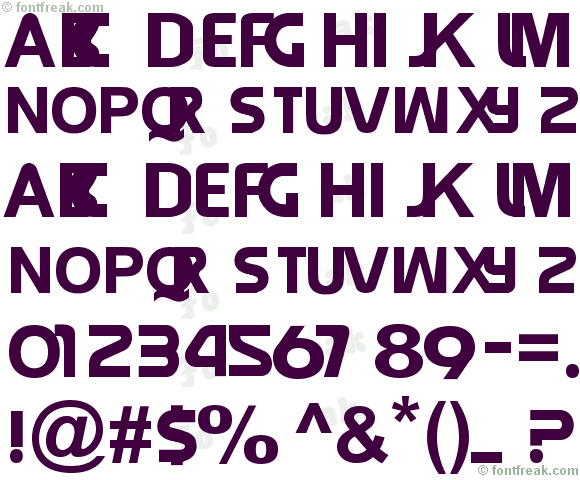
Jolly Raunchy
About Jolly Raunchy
The Jolly Raunchy font, created by Sharkshock Productions in 2001, is a unique display typeface that exudes a playful and bold character. This font is categorized as a decorative typeface, making it ideal for projects that require a fun and eye-catching typographic style. The visual characteristics of Jolly Raunchy include thick, rounded strokes that offer a substantial weight, paired with minimal contrast, which enhances its readability while maintaining a whimsical charm. The spacing between characters is generous, allowing the letters to breathe and creating a lively aesthetic that draws attention.
This font is particularly well-suited for a variety of creative applications. It shines in projects like wedding invitations, where a touch of fun is desired. Additionally, Jolly Raunchy is perfect for movie posters that aim to capture the viewer's attention with its lively and engaging style. It can also elevate restaurant menus, especially those looking to convey a casual and inviting atmosphere. Content creators will find this font a fantastic choice for social media graphics, where grabbing the audience's attention is crucial. Its versatility makes it appealing to graphic designers, small business owners, and anyone in need of a distinctive typeface.
What sets the Jolly Raunchy font apart is its ability to blend a sense of humor with professionalism, making it suitable for both casual and serious contexts. The font’s unique character can infuse personality into any project, ensuring that it stands out in a crowded visual landscape. For those looking to add a touch of whimsy to their designs, the Jolly Raunchy font free download is an excellent choice that combines innovation with accessibility.